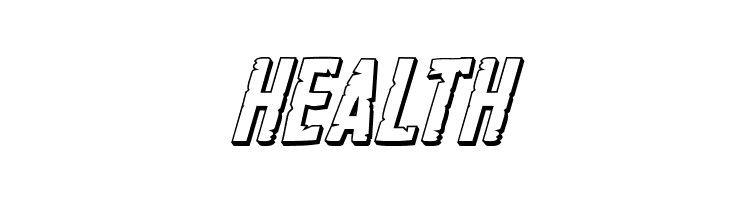
A modern, light, and italic sans-serif font with elegant slanted characters.
A creative font designed to resemble pencil drawings, ideal for educational themes.
A playful, rounded font with a whimsical and friendly appearance.
A bold, 3D italic font with outlined characters and a dynamic style.
A bold, distressed font with an expanded width and rugged style.
A bold, italic font with angular edges and a distressed texture.
A bold, distressed font with a rugged, weathered appearance.
A bold, italic, and angular font with a rugged, industrial feel.
A bold, distressed, and condensed font with a rugged, edgy style.
An intricate, decorative monogram font with elaborate swirls and flourishes.